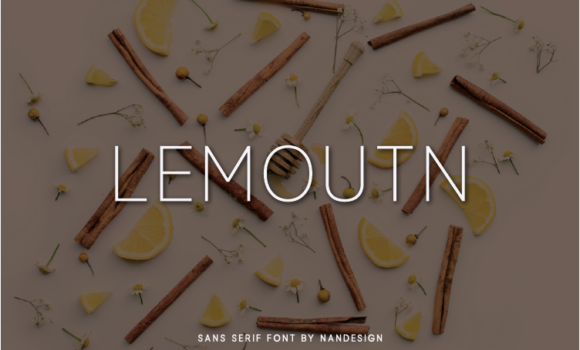
lemoutn
Lemoutn Font – Free Download Introduction to Lemoutn Font Lemoutn is a simple and thin sans serif font created to complement every project you’re working on. 📸 Preview Gallery 2 images 📌 Product Name Lemoutn Font 👤 Author Nan Design